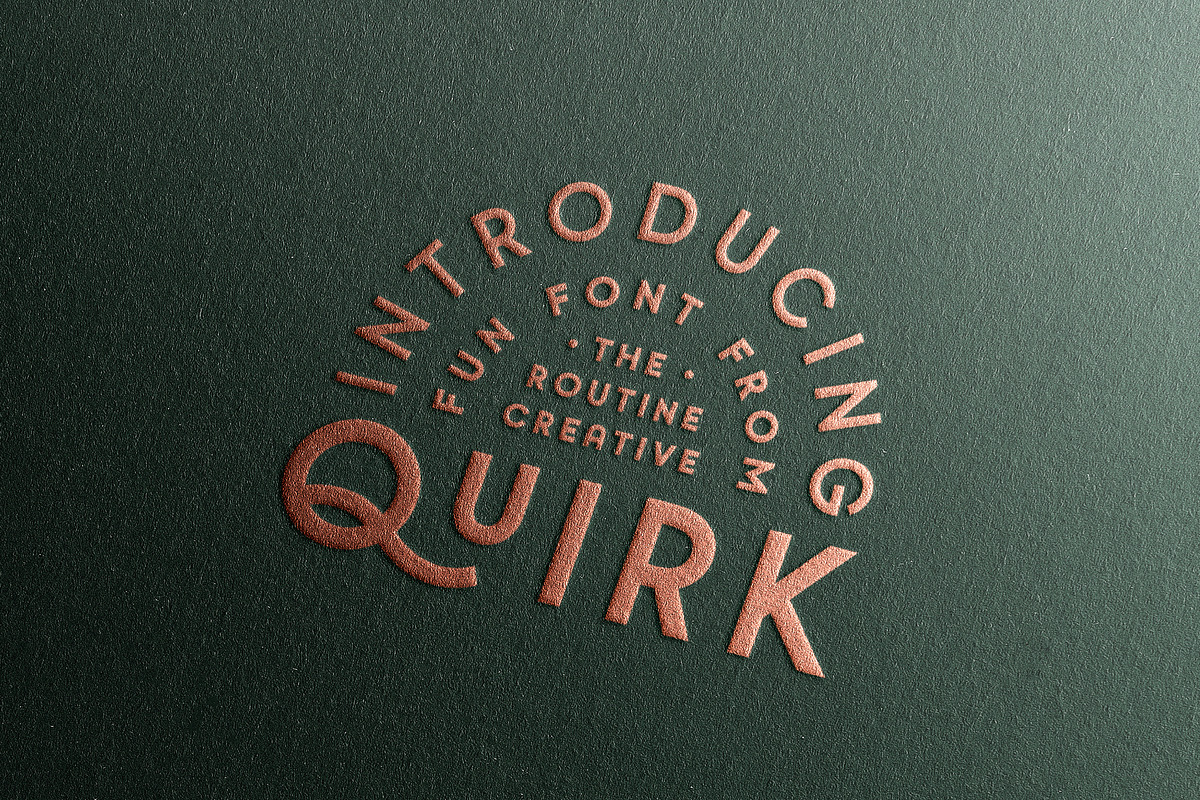
Quirk is a fun stackable display font that lives up to its name! The way you can uniquely stack different parts of this font makes it super fun to work with! Pairs well with bold sans serifs.
It will be very suitable for your project, which is related to fun, trendy street style vibe. Such as story books, illustrations, comic books, posters, greeting cards, logos, branding, stickers, svg, crafting.
- All Caps Alternate Characters
- Small Caps Alternate Characters
- Numbers
- Special Characters